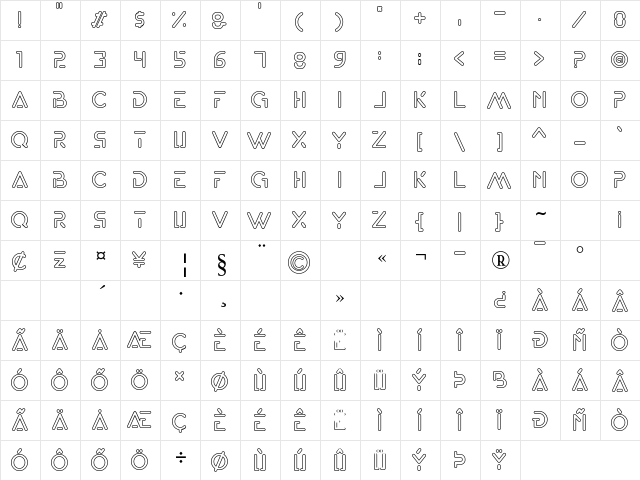
Exodar-Outline Regular
Design Context for Exodar-Outline Typeface
Exodar-Outline brings ornamental detail and strong personality to headlines and identities, where visual impact matters more than quiet functionality.
Font Pairing: Pair with a clean neutral sans-serif for body copy to let Exodar-Outline's character lead without overwhelming the composition.
Pro Tip: Treat Exodar-Outline as the centrepiece of your typographic hierarchy. One strong heading set in a decorative face can carry an entire layout.